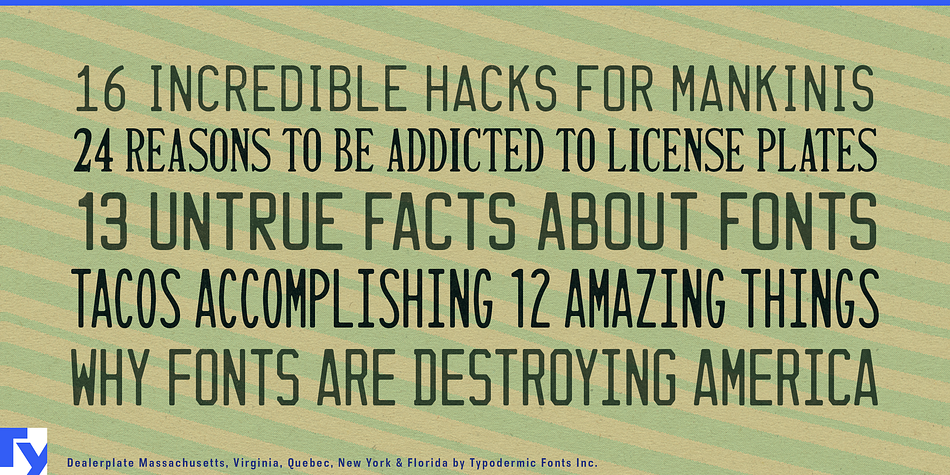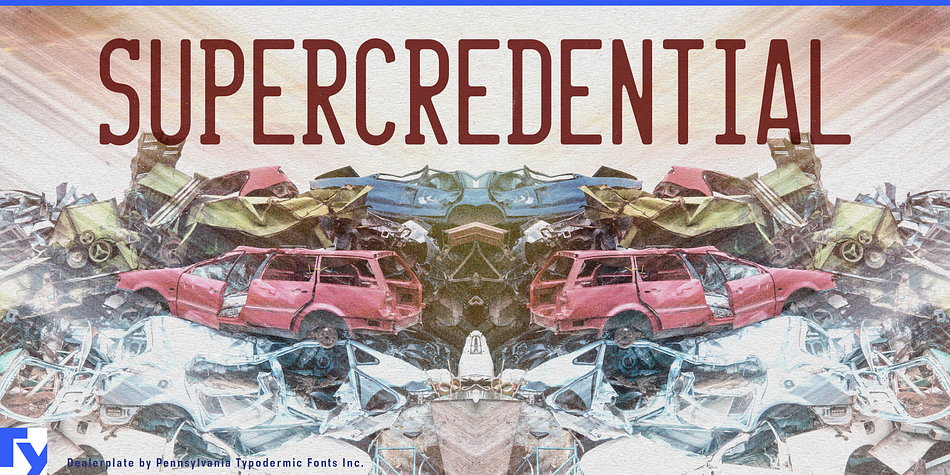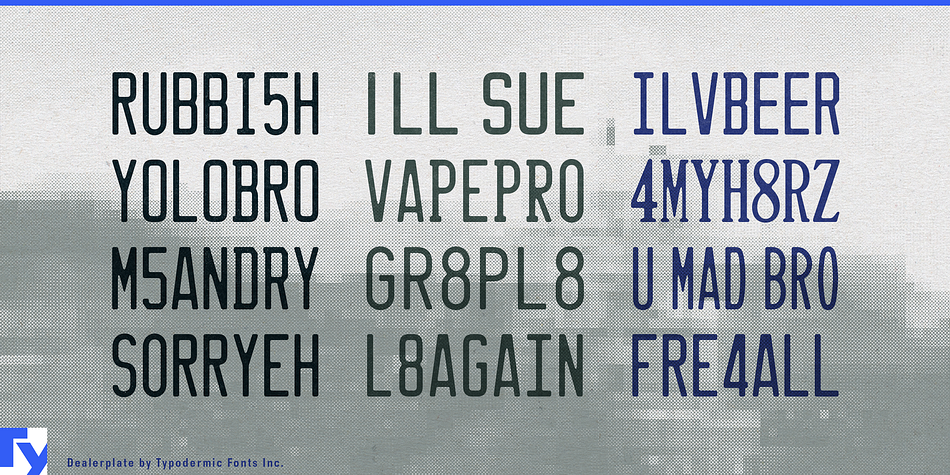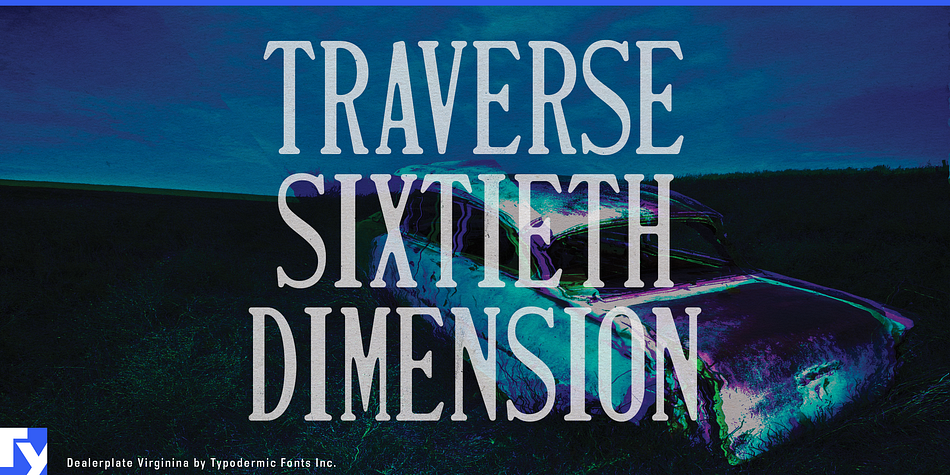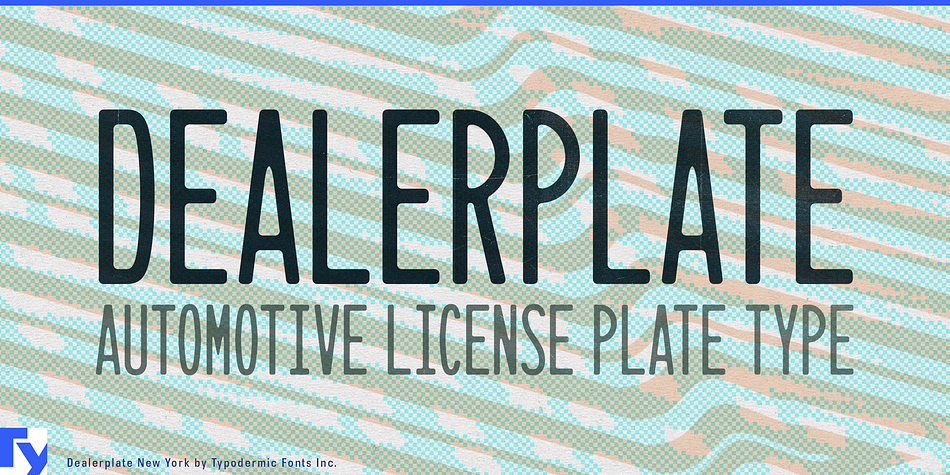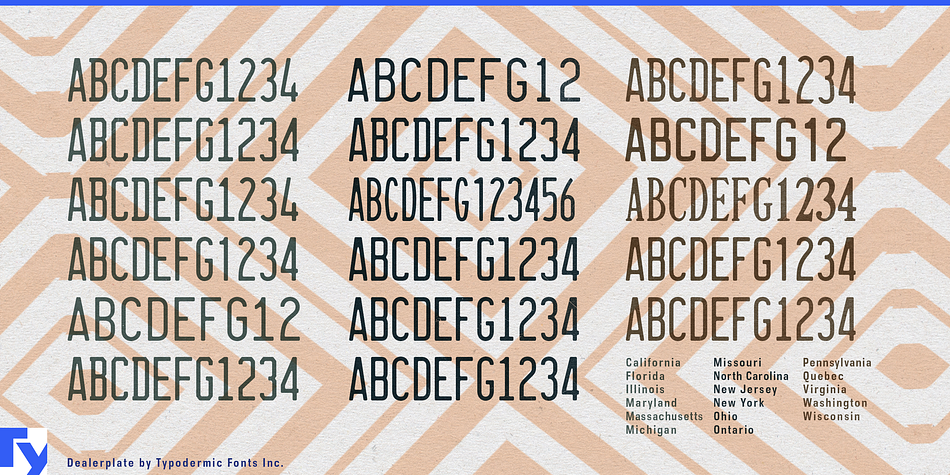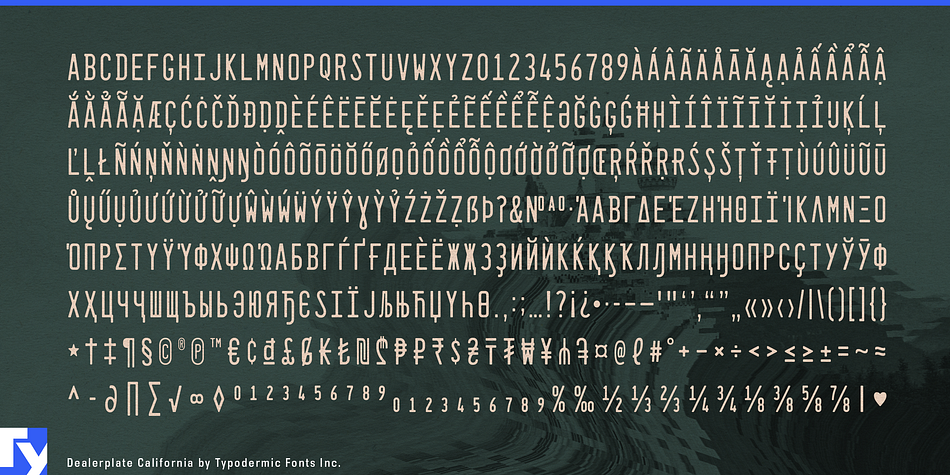
Designed by Ray Larabie, Dealerplate is a display sans and display serif font family. This typeface has seventeen styles and was published by Typodermic Fonts Inc.
Dealerplate is a series of 17 fonts based on various embossed license plates in the United States and Canada. Most Dealerplate fonts feature the most recent embossed style as of 2019. To get a more authentic monospaced look, try turning off kerning. Almost all current Latin-based languages are supported, including Vietnamese, Cyrillic languages, and Greek.